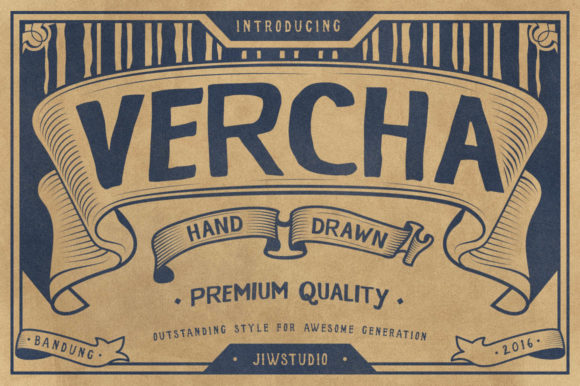
Behold, introducing the Vercha Font - a breathtaking display font that oozes vintage charm and timeless elegance. With its bold strokes and captivating curves, Vercha is a font designed to make your designs stand out from the crowd.
Journey through time as you explore the endless possibilities that Vercha Font has to offer. Create eye-catching vintage t-shirts that transport your customers back to an era of nostalgia and authenticity. Unleash your creativity and watch as your designs take on a life of their own, capturing the hearts and imaginations of your audience.
Vercha Font is not just a font; it's a gateway to a world of vintage aesthetics and captivating designs. Its versatility extends beyond t-shirts, making it the perfect choice for posters, logos, branding, and any project that demands a touch of retro charm.
With Vercha Font, you can effortlessly elevate your designs to the highest levels. Its bold and vintage-inspired style adds a touch of sophistication and uniqueness, leaving a lasting impression on your audience.
Don't let your designs blend in the background. Embrace the power of Vercha Font and unlock a world of creative possibilities. Let your imagination soar and witness the transformation as your designs blossom into masterpieces.
Vercha Font is more than just a font; it's a key to unlocking a world of vintage aesthetics and captivating designs. Its versatility and timeless appeal make it the perfect companion for any creative project.